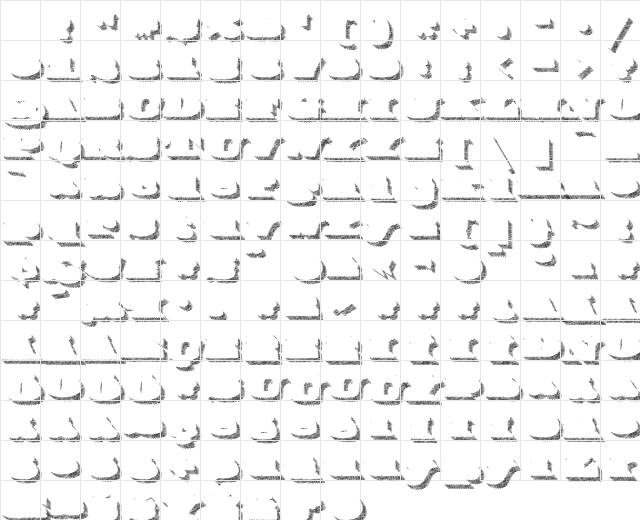
Complete FederalEighteen Medium glyph index. Displaying only characters natively supported by FederalEighteen Medium font.
FederalEighteen is a composed and adaptable typeface that performs quietly and consistently across a wide range of design contexts.